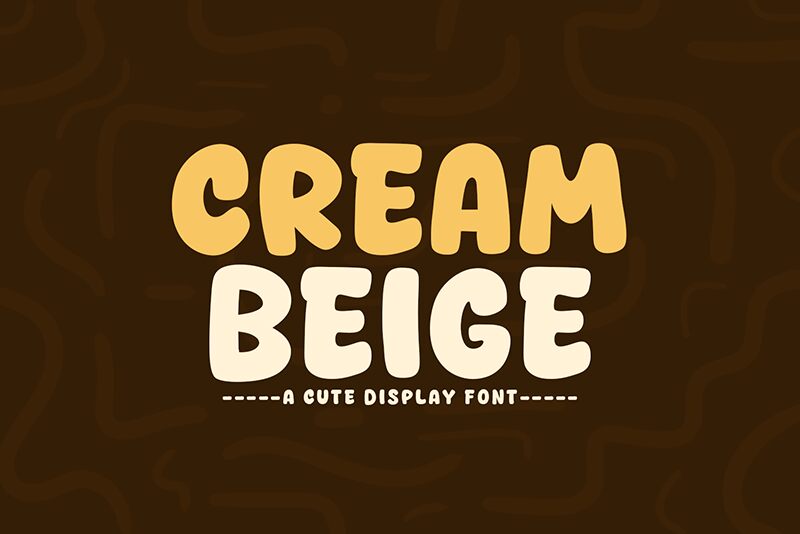
Cream Beige font by Khurasan is a bold cartoon display typeface. It immediately captures the user with its friendly mood and retro aesthetic, a vintage feel that brings back memories of books, cartoons, and graphic novels from decades before. The smooth rounded and exaggerated characters are not only fun to look at but also highly readable. And although originally created for display purposes, this free font still gives a fabulous touch for both texts and titles in different projects.
Deliver creativity with Cream Beige as you create newspaper headlines, branding projects, magazine covers or mockups for them, business cards of artists or authors or storeowners that want to stand out in a fun manner. This lovely display font can also be used for book titles (children’s books), advertisements including online ads and social media posts like Instagram stories and Facebook posts as well as printed ads like flyers. Cream Beige is particularly useful when added to logotypes and packaging designs connected with comic books stores (online or physical).